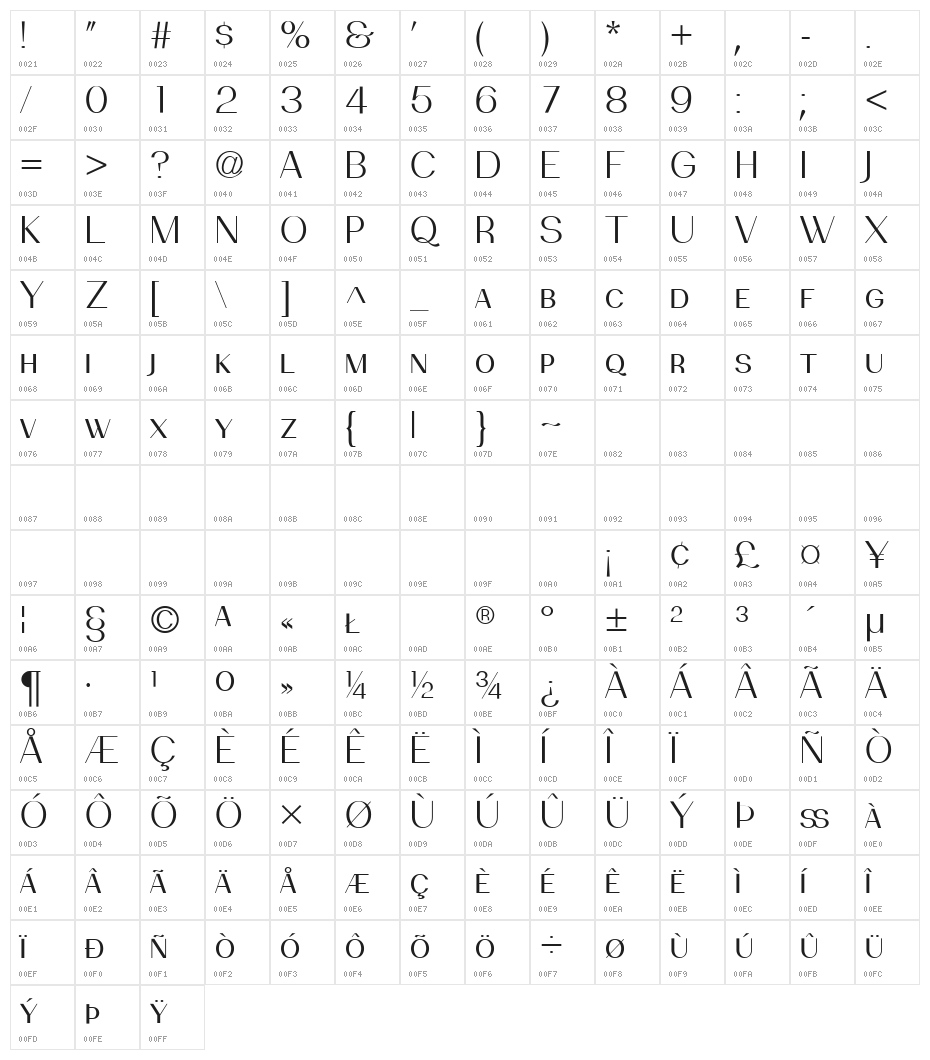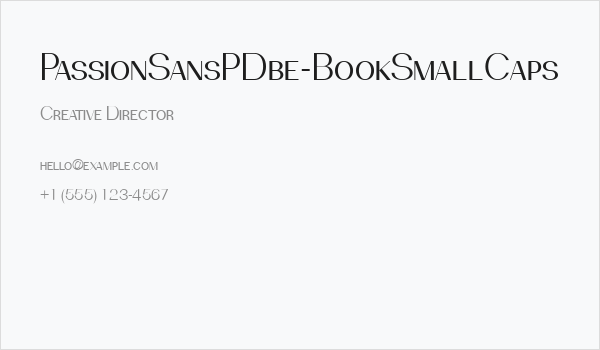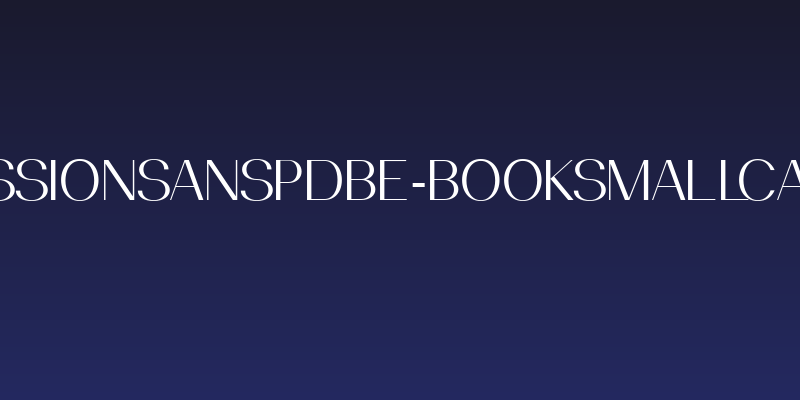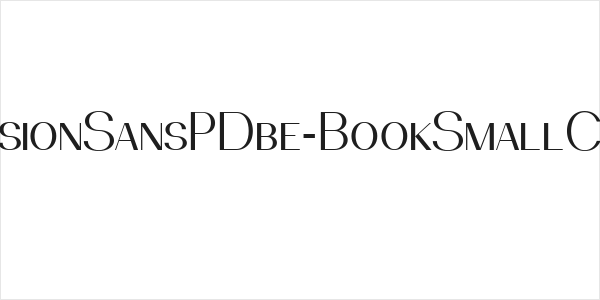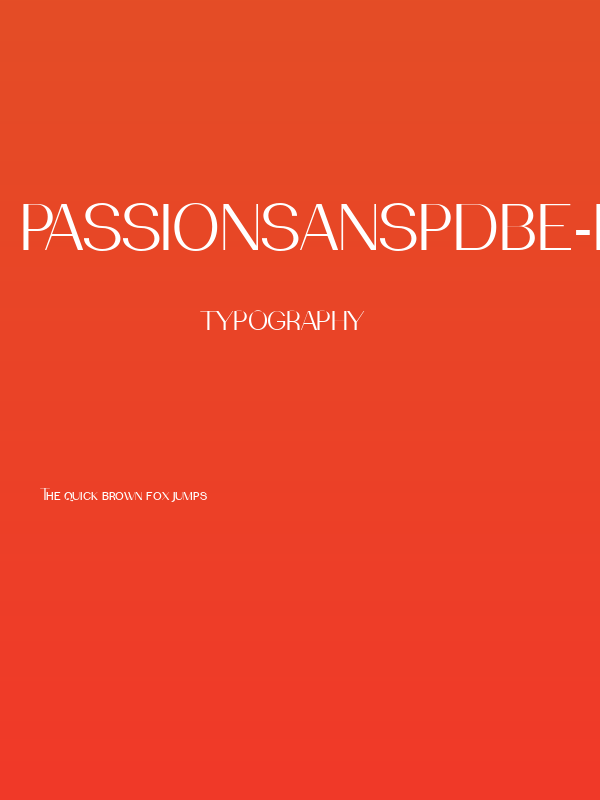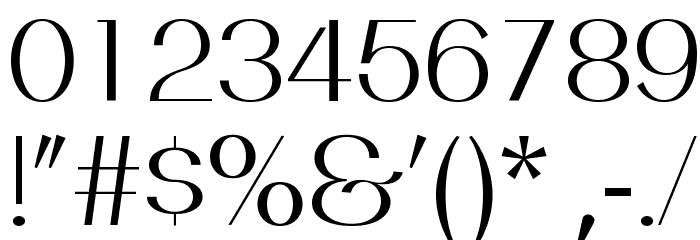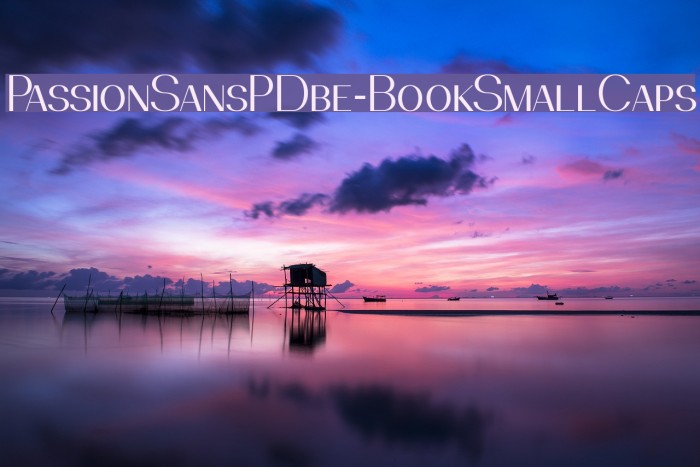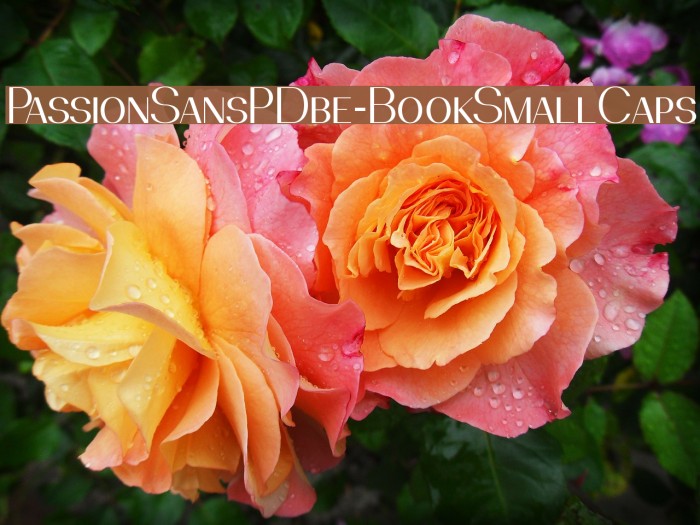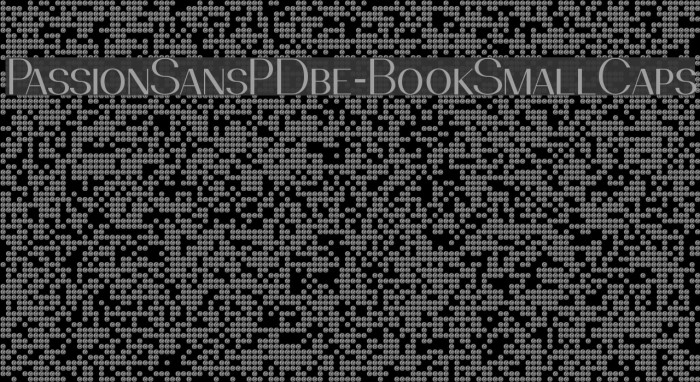
PassionSansPDbe-BookSmallCaps Font
PassionSansPDbe-BookSmallCaps Description
This font features a sleek and modern design with clean lines and a geometric structure. The uppercase letters are bold and striking, while the lowercase letters maintain a consistent style that complements the overall aesthetic. The numerals are clear and easy to read, making them suitable for various applications. Special characters are included, adding versatility to the font's use. The design is minimalistic yet impactful, making it ideal for contemporary projects that require a touch of elegance and sophistication.
| Proposed Projects | Ideal for branding, editorial design, advertising, and digital media projects. |